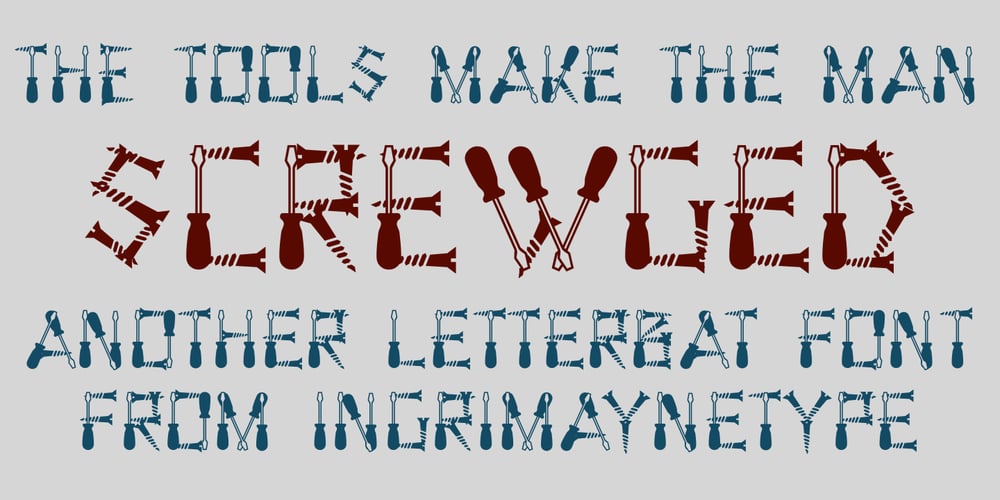
Screwged Font Family was designed by Robert Schenk and published by Ingrimayne Type. Screwged contains 1 styles and family package options. Screwged is a letterbat font in which letters are made of screwdrivers and screws. It is caps only, but the characters on the lower-case keys differ from those on the upper-case keys. It contains a large set of accented characters. It is not often that one needs a typeface made of screws and screwdrivers, but if one does, there is a font for that. For related, tool-based typefaces, see WrenchedLetters, NailsNStaples, and Hammered.